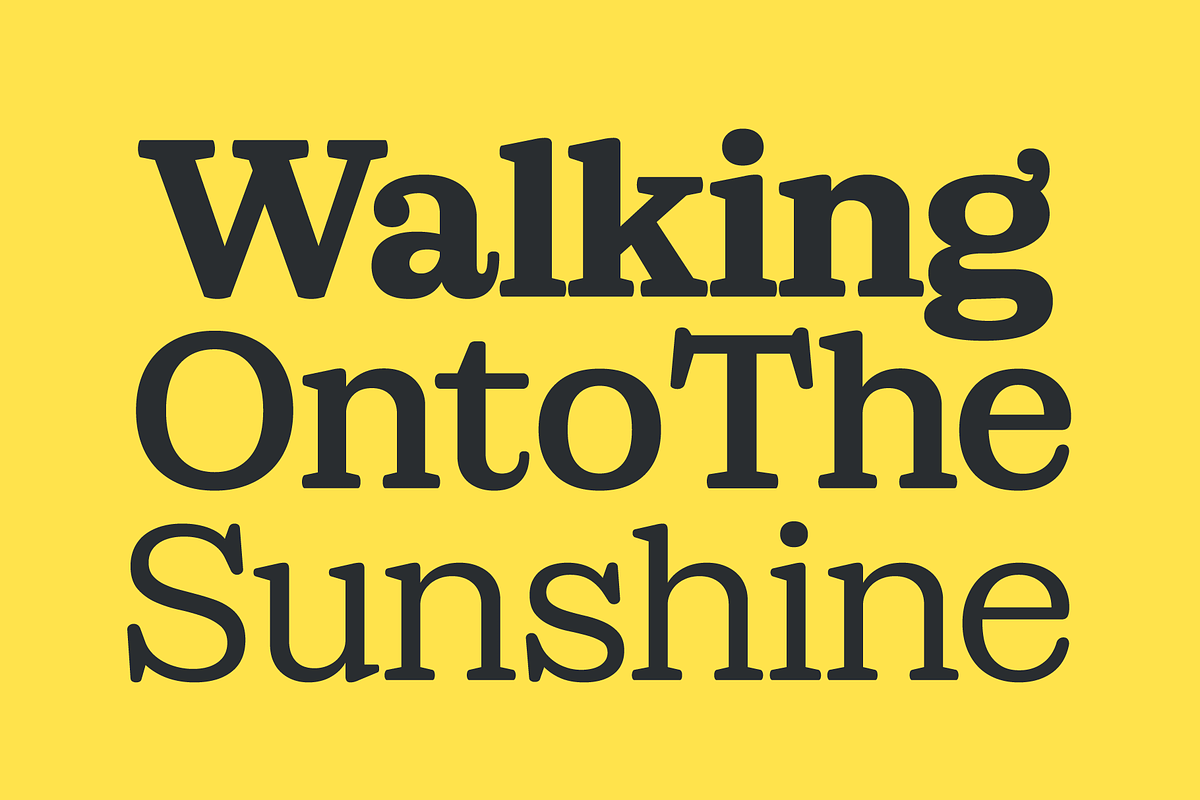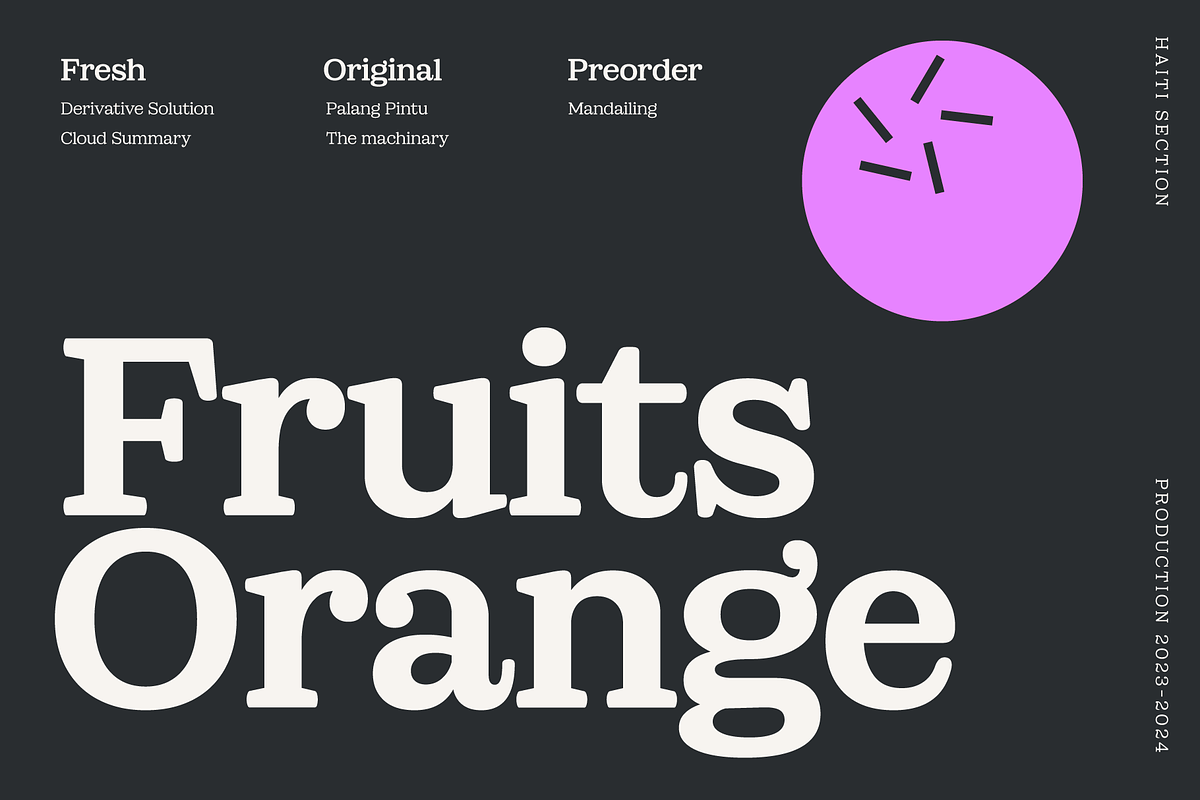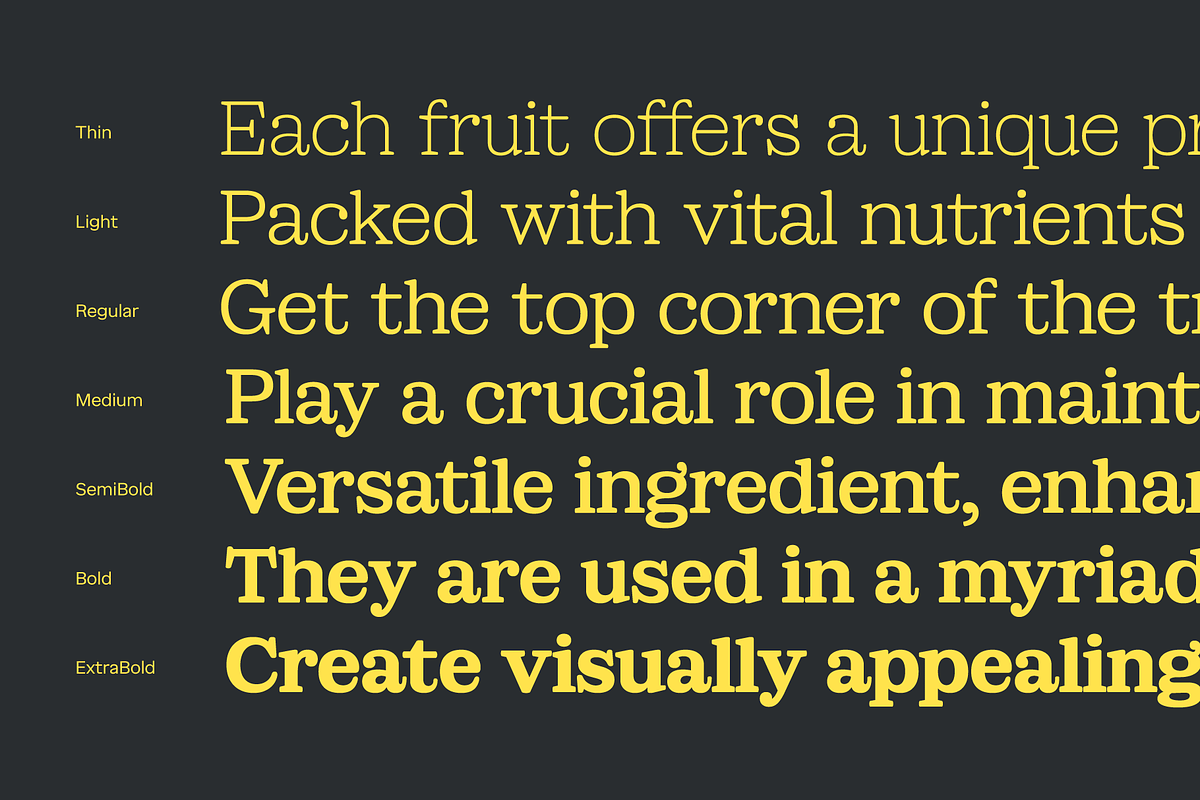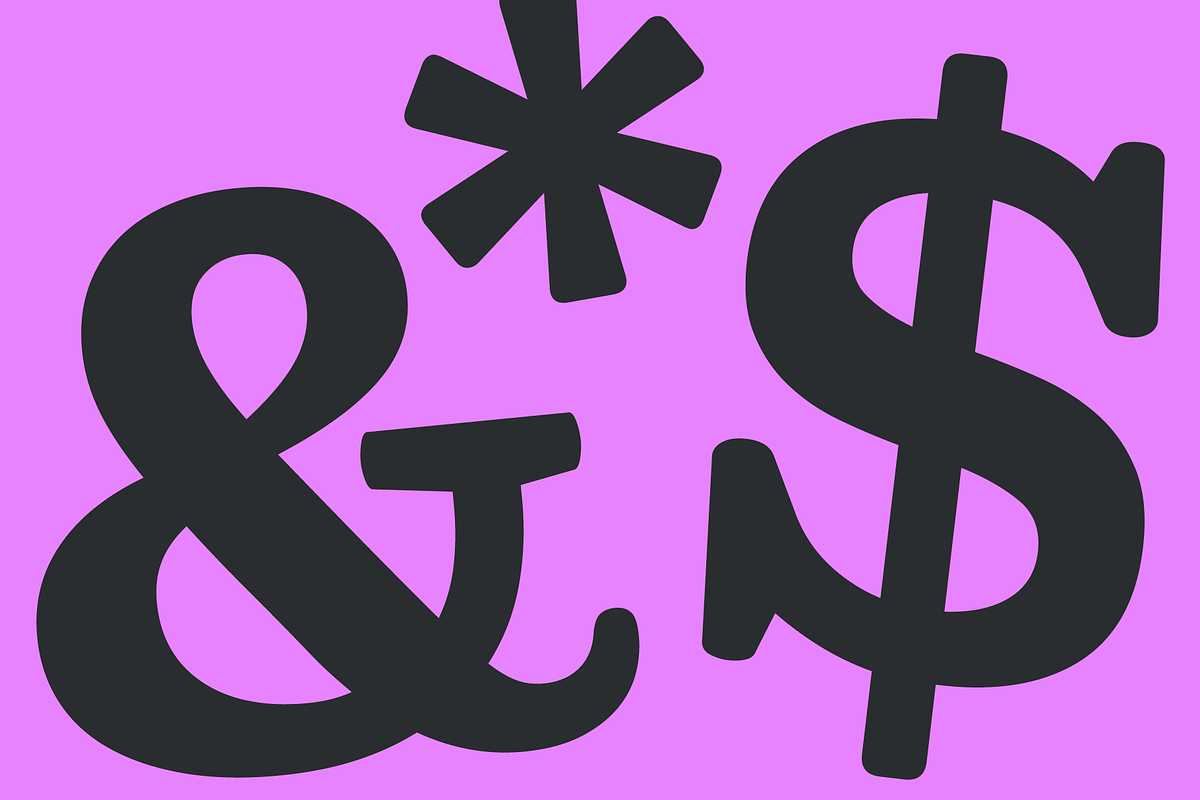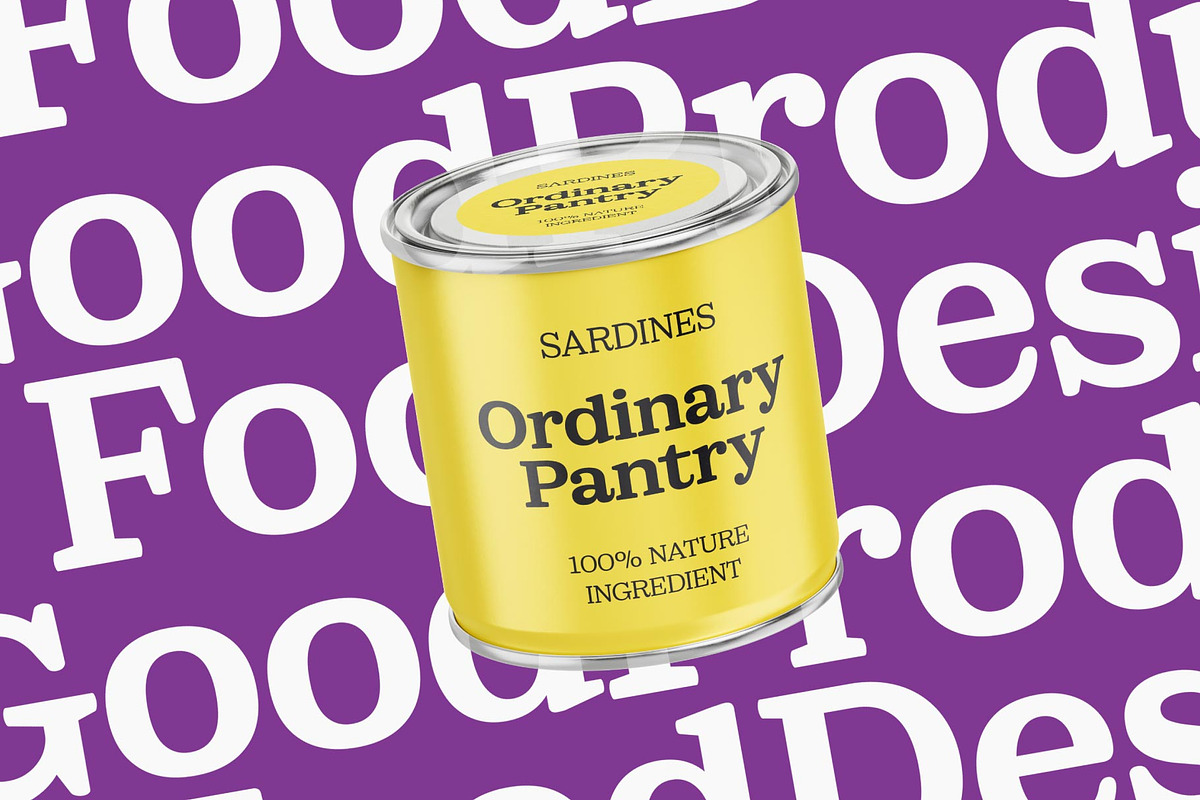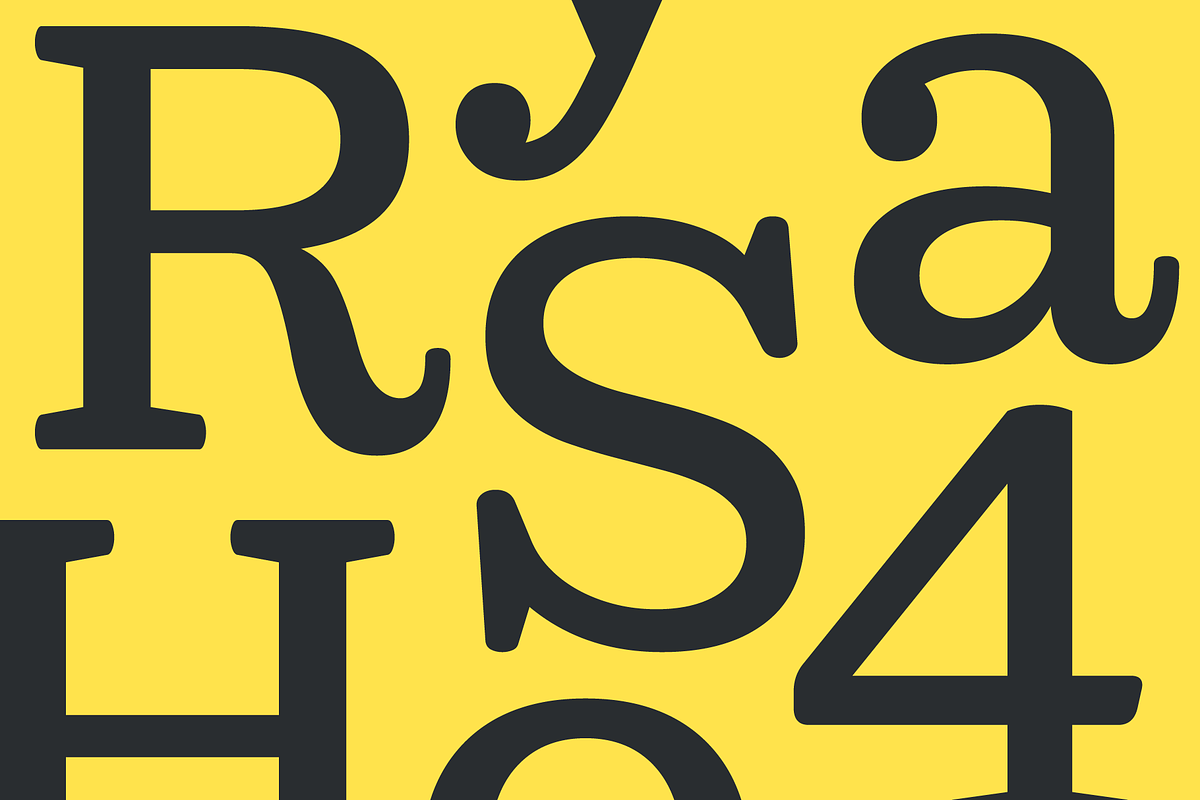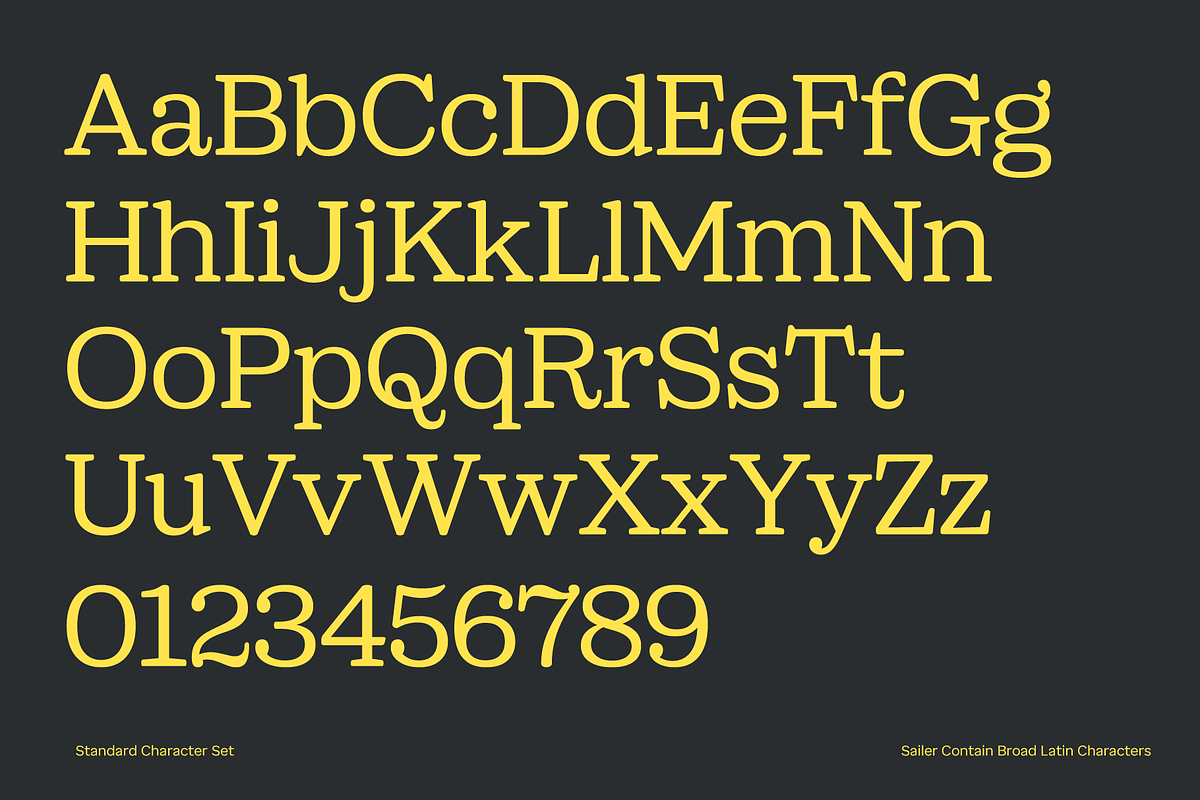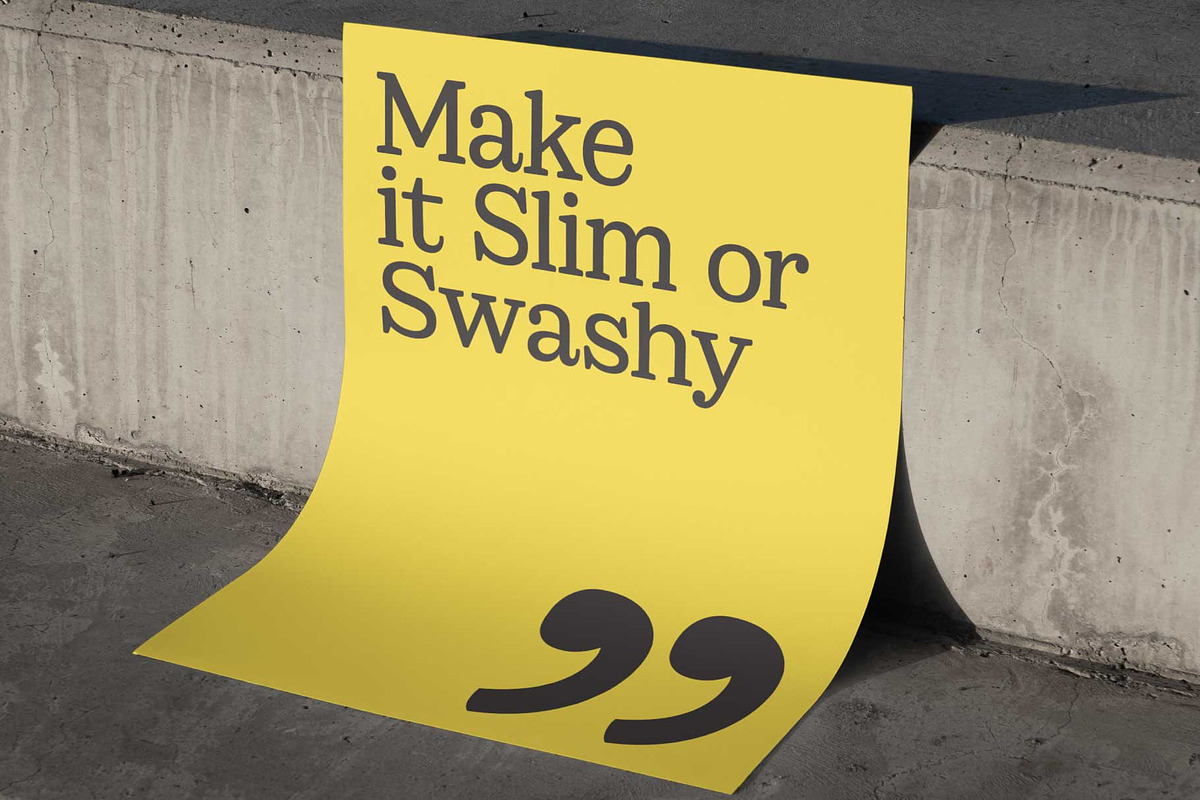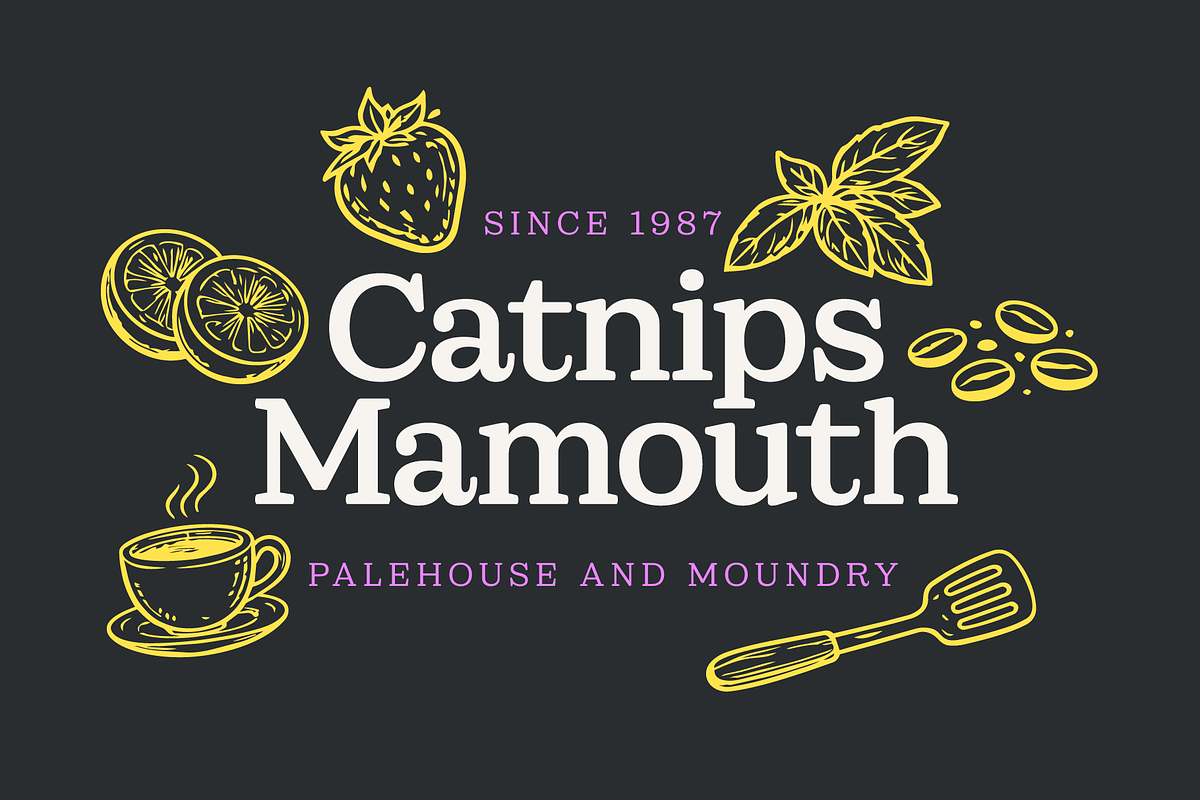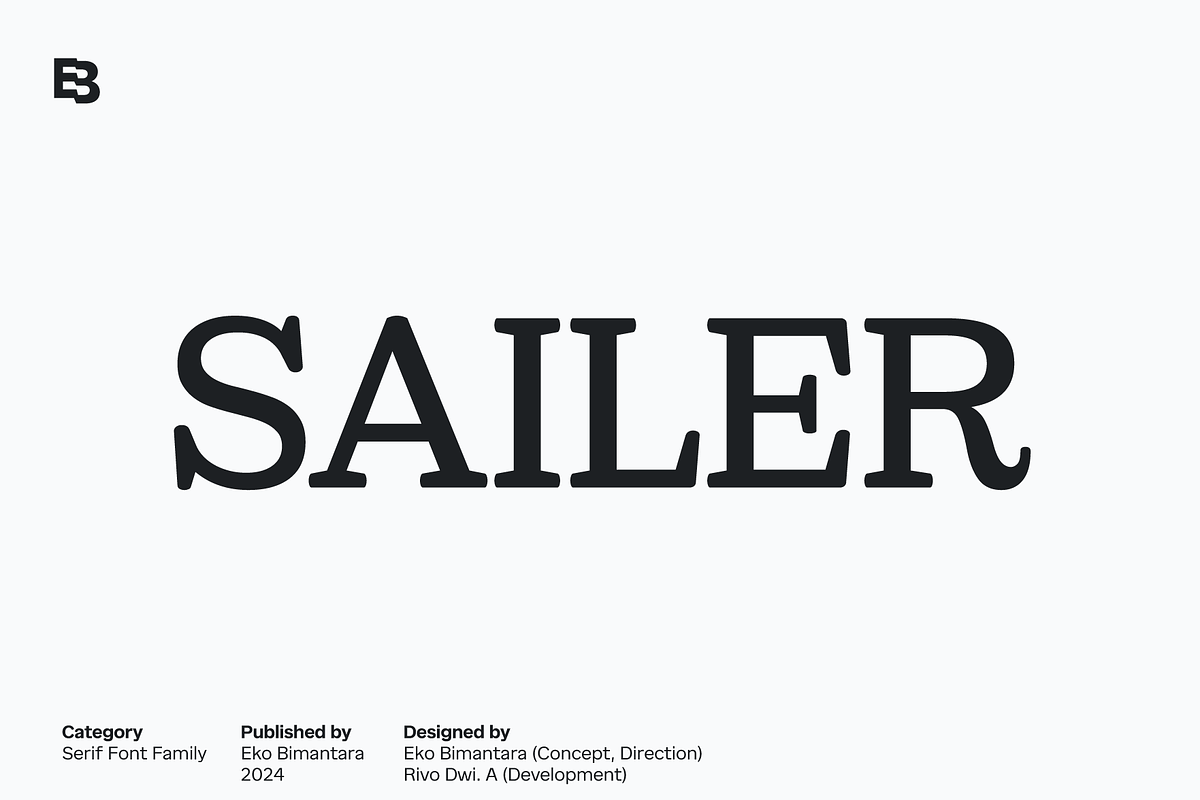
Sailer: Display Serif Font Family
Sailer is a serif display font family that embodies a blend of western, soft, classic, and vintage elements. Designed to fit unique, bold, and classic themes, Sailer features tight spacing, soft edges, and a quirky personality that adds character and charm to any design. The font family includes seven styles ranging from Thin to ExtraBold, each accompanied by matching Italics, and covers a broad range of Latin languages, ensuring versatility across various design projects.
Ideal for display, large-size settings, and headers, Sailer is perfect for use in various layout designs, logos, websites, brand identities, and product packaging. Its distinctive blend of western and vintage aesthetics, combined with a soft and classic feel, makes it suitable for both text and web font applications. Sailer brings a timeless and unique touch to any creative project.